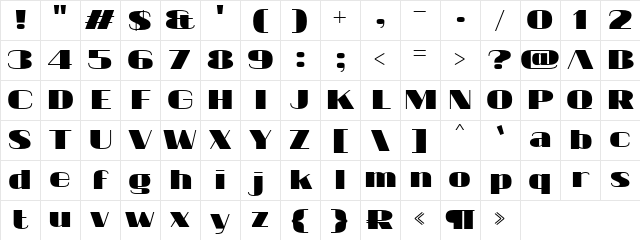
20 db Regular
Foundry: Jovanny Lemonad
Designer: Jovanny Lemonad
Design Context for 20 db
20 db is a composed and adaptable typeface that performs quietly and consistently across a wide range of design contexts.